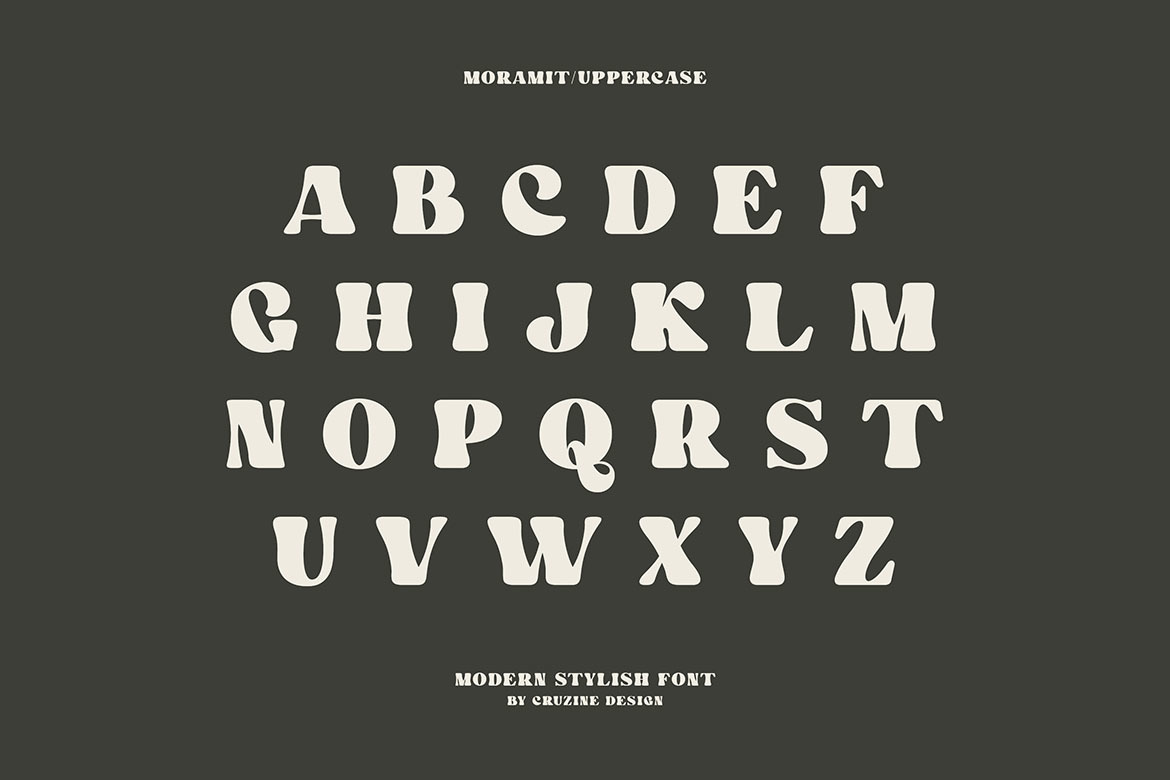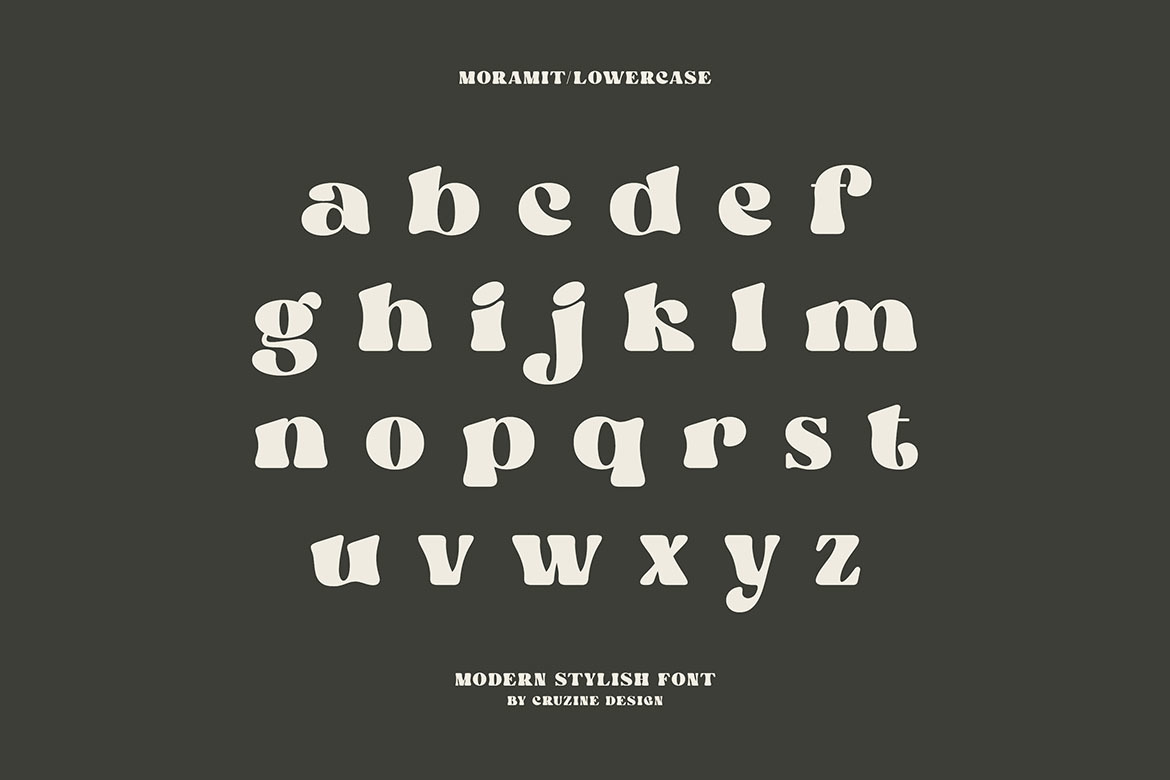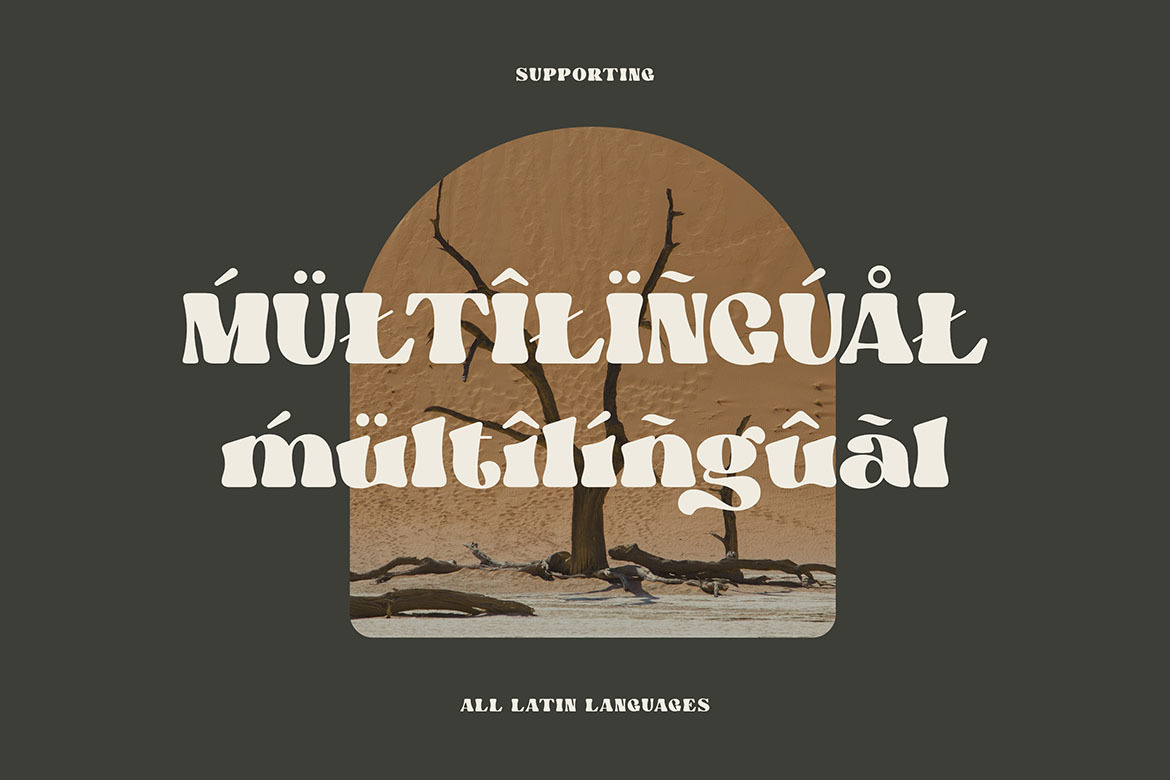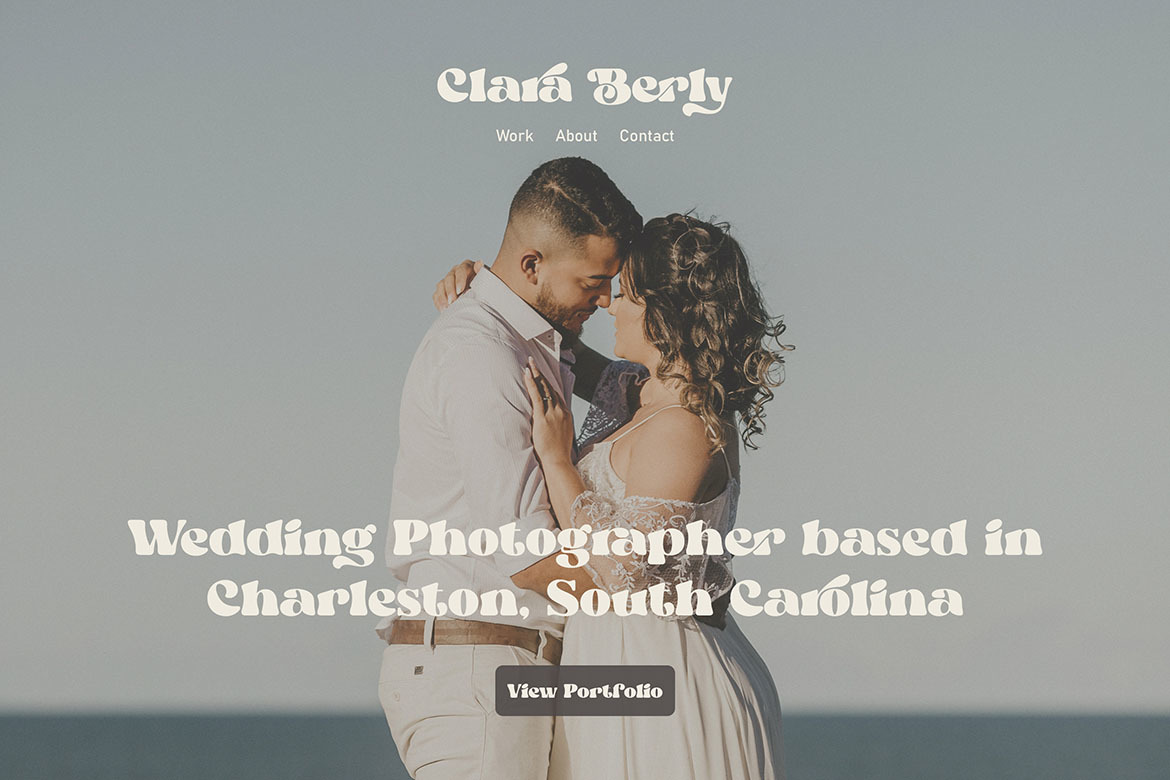
Moramit - Rounded Serif Font
Trendy, bold, retro, rounded & modern style serif font for your fancy projects. Elegant, fashion and classic style on Moramit font will be great for any branding project. Lot of alternates and ligatures will help you to create unique and original logo design or website header! Enjoy :)
- Lot of alternate characters
- Lot of ligatures
- Great for modern branding projects!